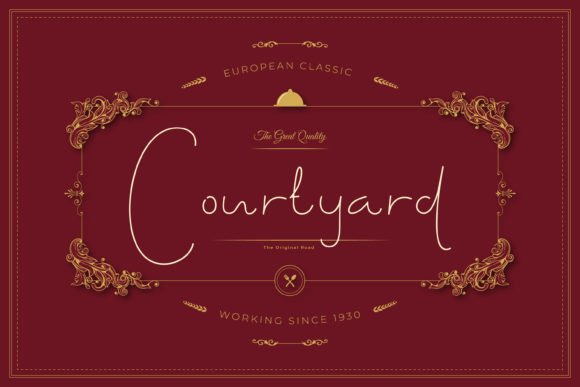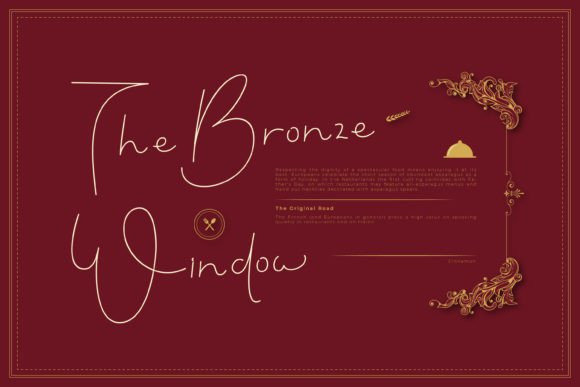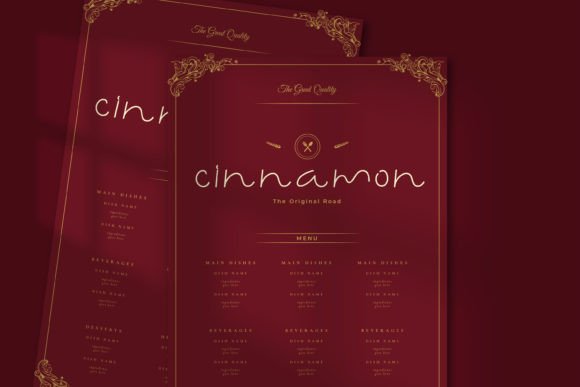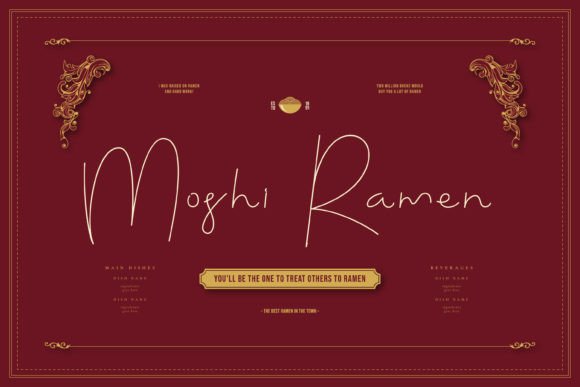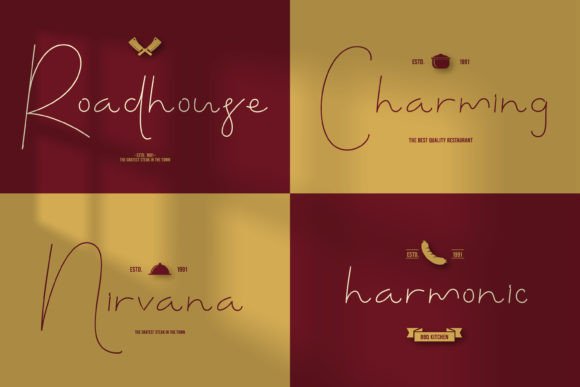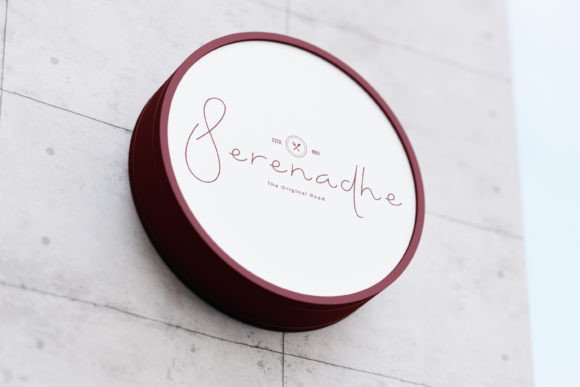
Gandhary Font: Elevate Your Design with a Touch of Luxury
In the world of typography, fonts play a crucial role in conveying the tone and aesthetic of a design project. For designers and crafters looking to add a touch of elegance and sophistication to their work, the Gandhary Font is an excellent choice. This beautiful and light handwritten font boasts a unique feel and a stunning impact, making it perfect for a wide range of design applications.
What is Gandhary Font?
Gandhary Font is a carefully crafted, handwritten typeface that exudes luxury and refinement. Its delicate strokes and fluid letterforms create a sense of movement and elegance, making it ideal for designs that require a touch of sophistication. Whether you’re working on a branding project, a wedding invitation, or a packaging design, Gandhary Font is sure to impress.
Unique Features of Gandhary Font
So, what sets Gandhary Font apart from other fonts? Here are a few of its unique features:
- Light and Airy Feel: Gandhary Font has a light and airy feel that makes it perfect for designs where you want to convey a sense of elegance and refinement.
- Unique Letterforms: The font features unique and stylish letterforms that are carefully crafted to create a stunning impact.
- Handwritten Style: The handwritten style of Gandhary Font adds a personal touch to any design project, making it perfect for crafts and DIY projects.
- Versatile: Gandhary Font is versatile and can be used for a wide range of design applications, from branding and advertising to packaging and wedding invitations.
How to Use Gandhary Font in Your Design Projects
Using Gandhary Font in your design projects is easy. Here are a few tips to get you started:
- Pair it with Bold Fonts: Pair Gandhary Font with bold fonts to create a striking contrast that adds depth and interest to your design.
- Use it for Headings: Use Gandhary Font for headings and titles to add a touch of elegance and sophistication to your design.
Why Designers and Crafters Love Gandhary Font
Designers and crafters love Gandhary Font for several reasons:
- High-Quality Design: The font is designed to high-quality standards, ensuring that it looks great in any design project.
- Unique Style: The unique style of Gandhary Font makes it stand out from other fonts, adding a touch of personality to any design project.
| Font Name | Gandhary Font |
| Author | inferno.type3 |
In conclusion, Gandhary Font is a beautiful and light handwritten font that is perfect for designers and crafters looking to add a touch of luxury to their design projects. Its unique feel and stunning impact make it ideal for a wide range of design applications, from branding and advertising to packaging and wedding invitations. With its ease of use, high-quality design, and unique style, Gandhary Font is a must-have for any designer or crafter looking to elevate their design work.